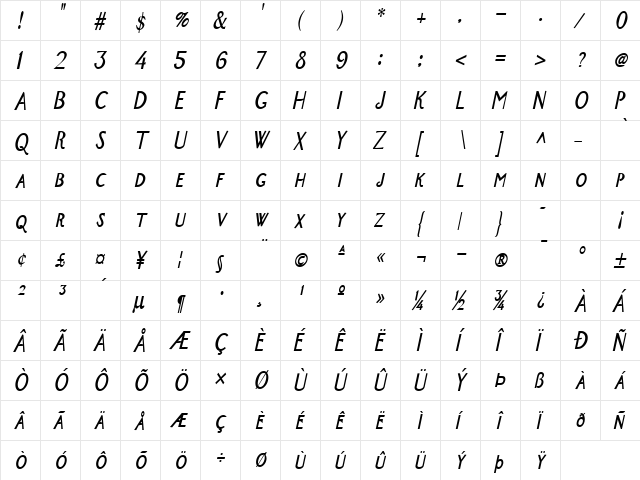
New York-Condensed Bold Italic
Design Context for New York-Condensed Typeface
New York-Condensed offers clean, dependable letterforms without strong stylistic allegiance, making it a practical choice for designers who need flexibility. The slanted form adds forward momentum and visual energy. Its bold stroke weight gives it real presence on the page. The condensed width makes it efficient for tight spaces without sacrificing legibility.
Pro Tip: Use New York-Condensed for emphasis, pull quotes, and subheadings where its slanted energy can add rhythm to the layout.